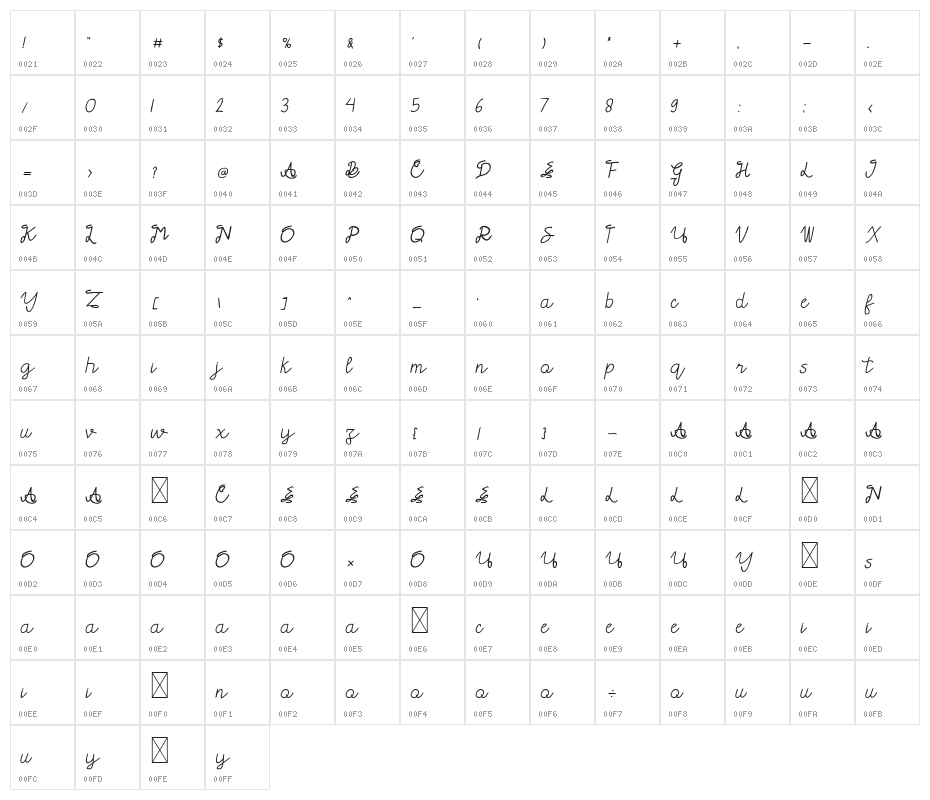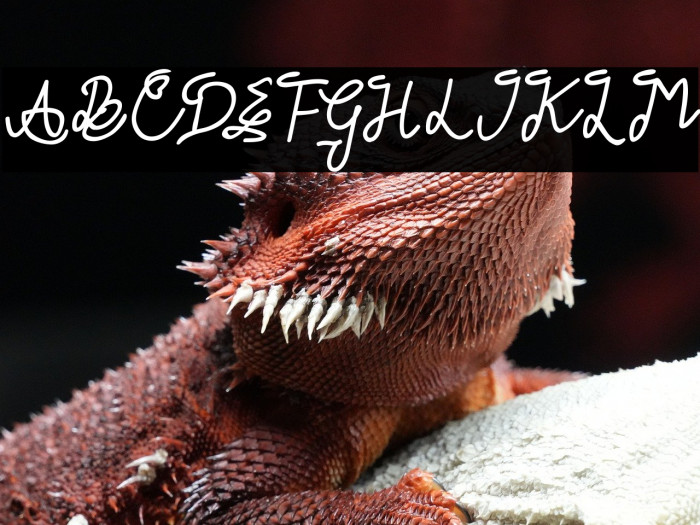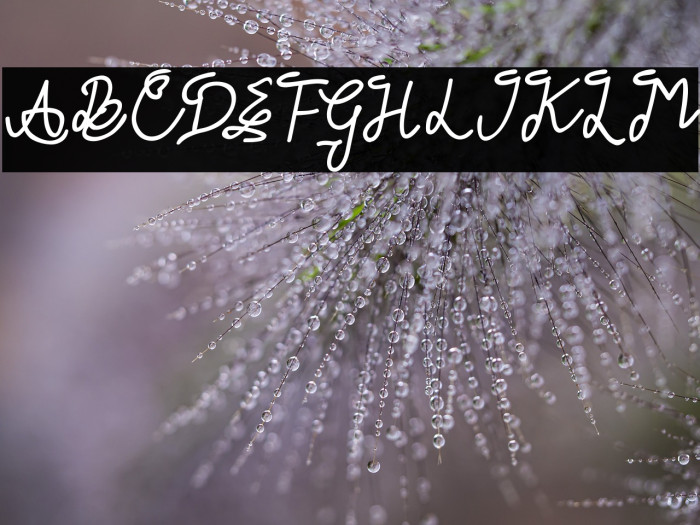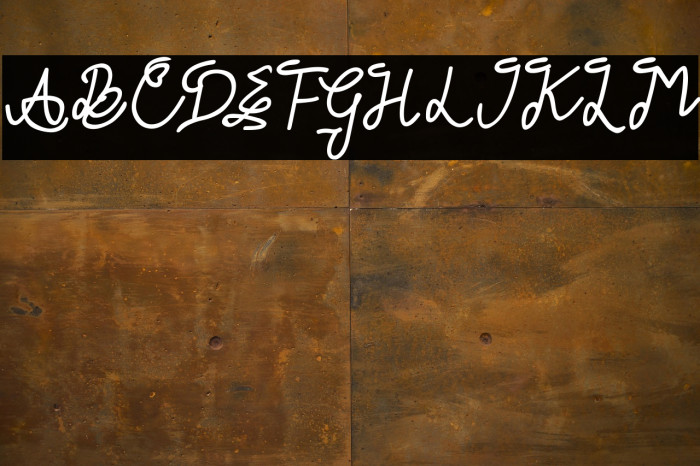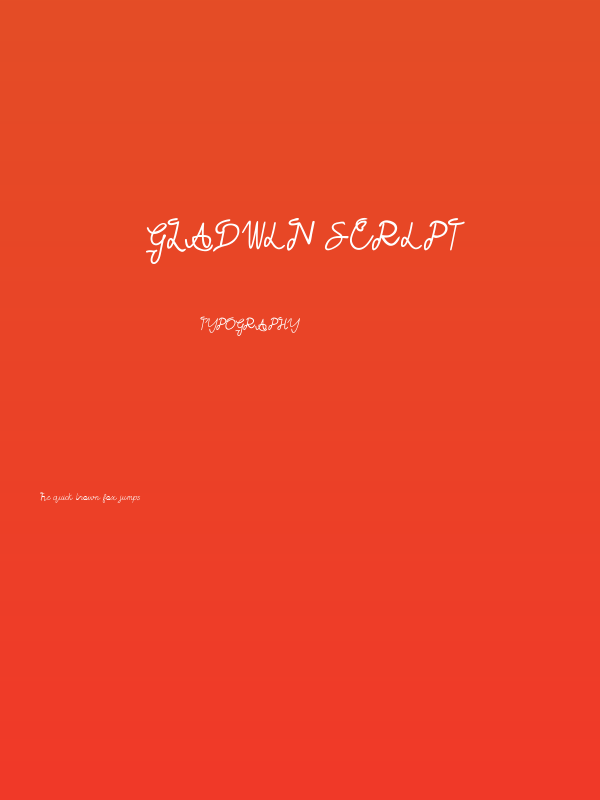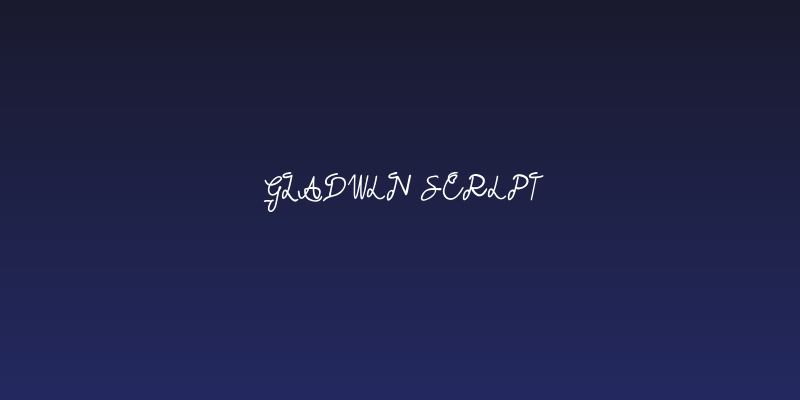
GLADWIN Script Font
GLADWIN Script Description
This font exhibits a flowing, cursive style with elegant loops and swashes, reminiscent of traditional calligraphy. The uppercase letters are ornate, with distinctive flourishes that add a touch of sophistication. The lowercase letters maintain a consistent flow, enhancing readability while retaining a stylish appearance. The numerals are designed to complement the script, featuring subtle curves that align with the overall aesthetic. Special characters are thoughtfully integrated, ensuring versatility in various design contexts. This font is ideal for projects that require a personal, artistic touch.
| Overall Style | Classic |
| Use Case | Logos, Invitations, Decorative text |
| Proposed Projects | Ideal for wedding invitations, greeting cards, branding, and elegant logo designs. |